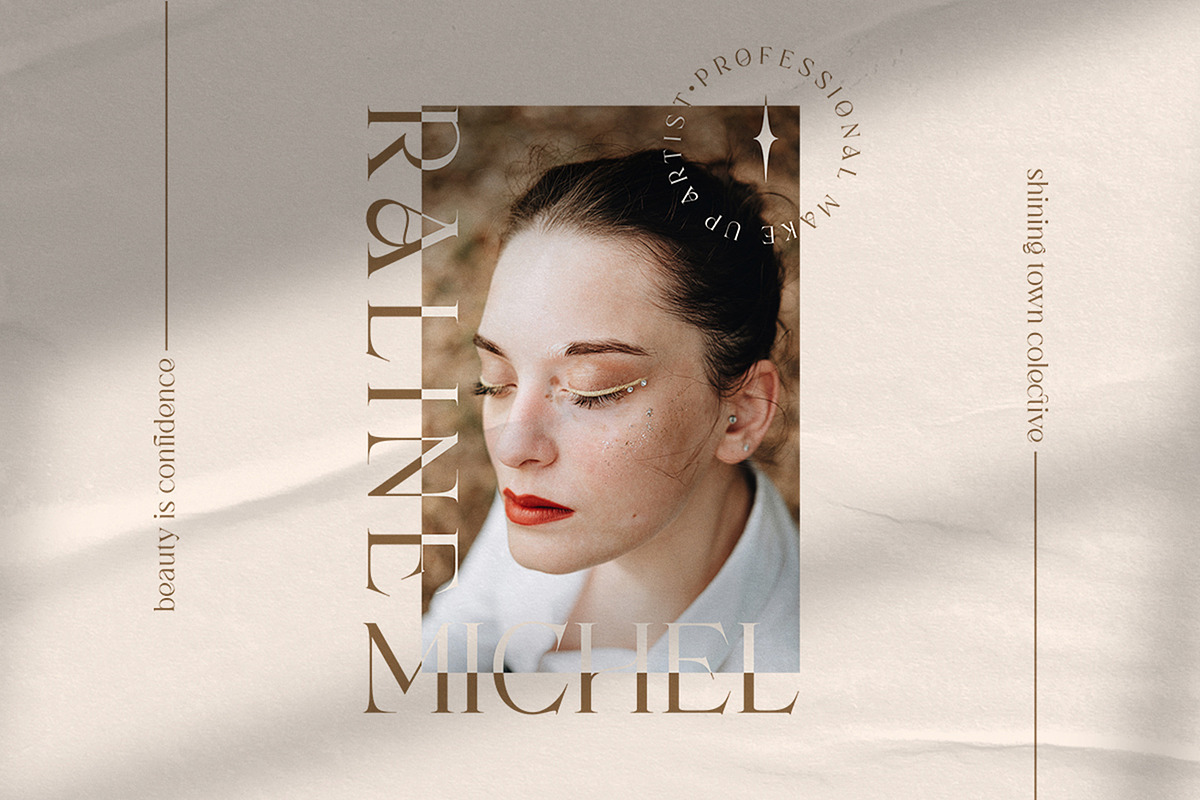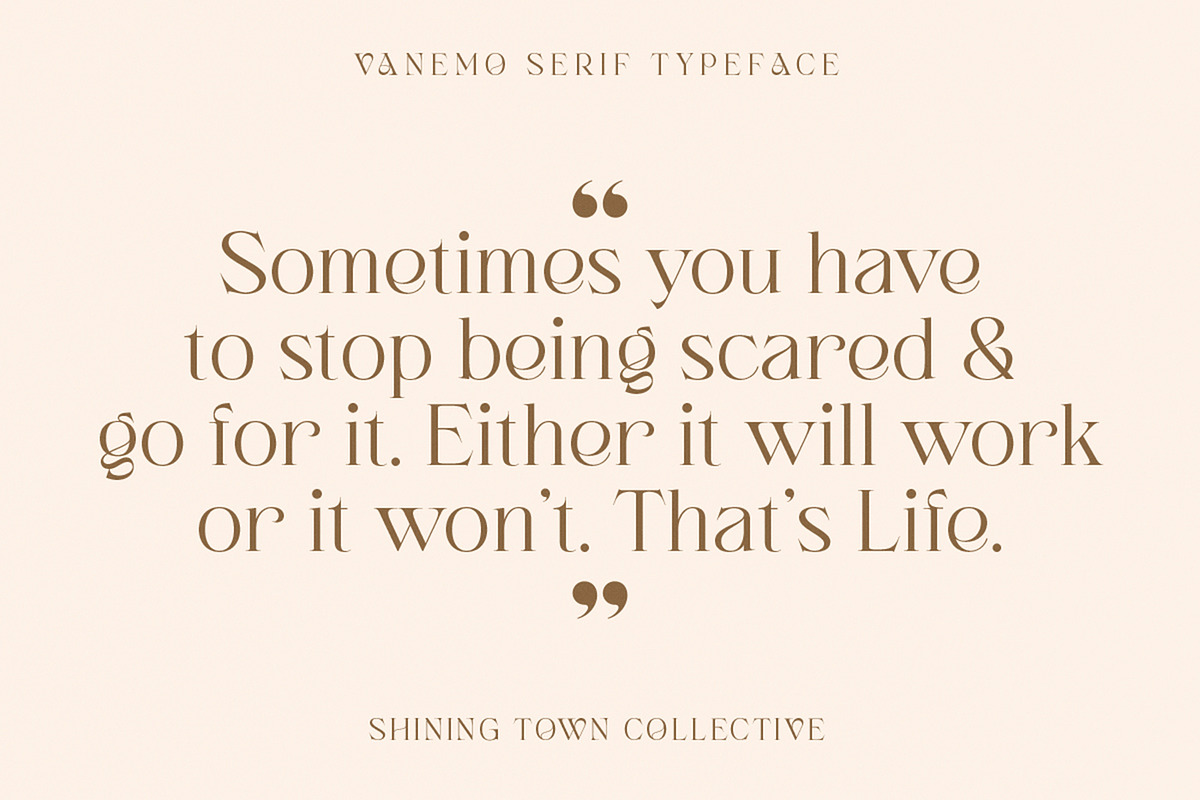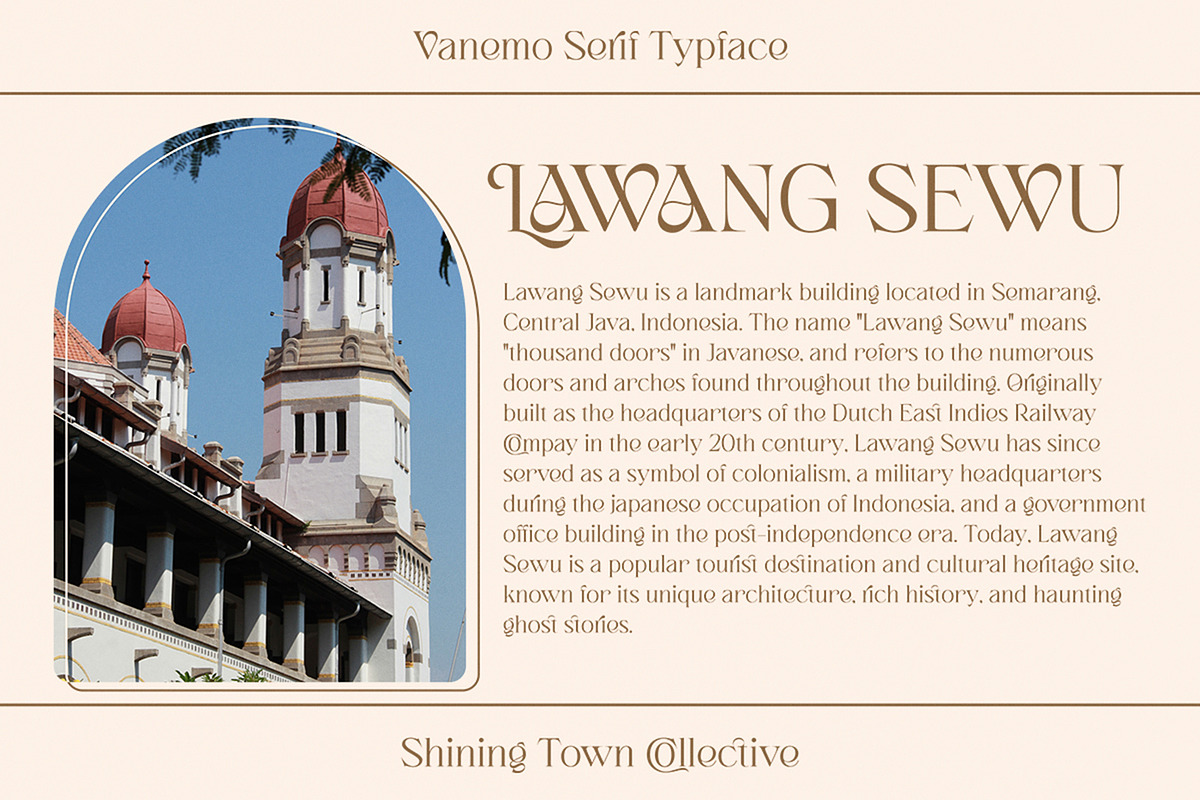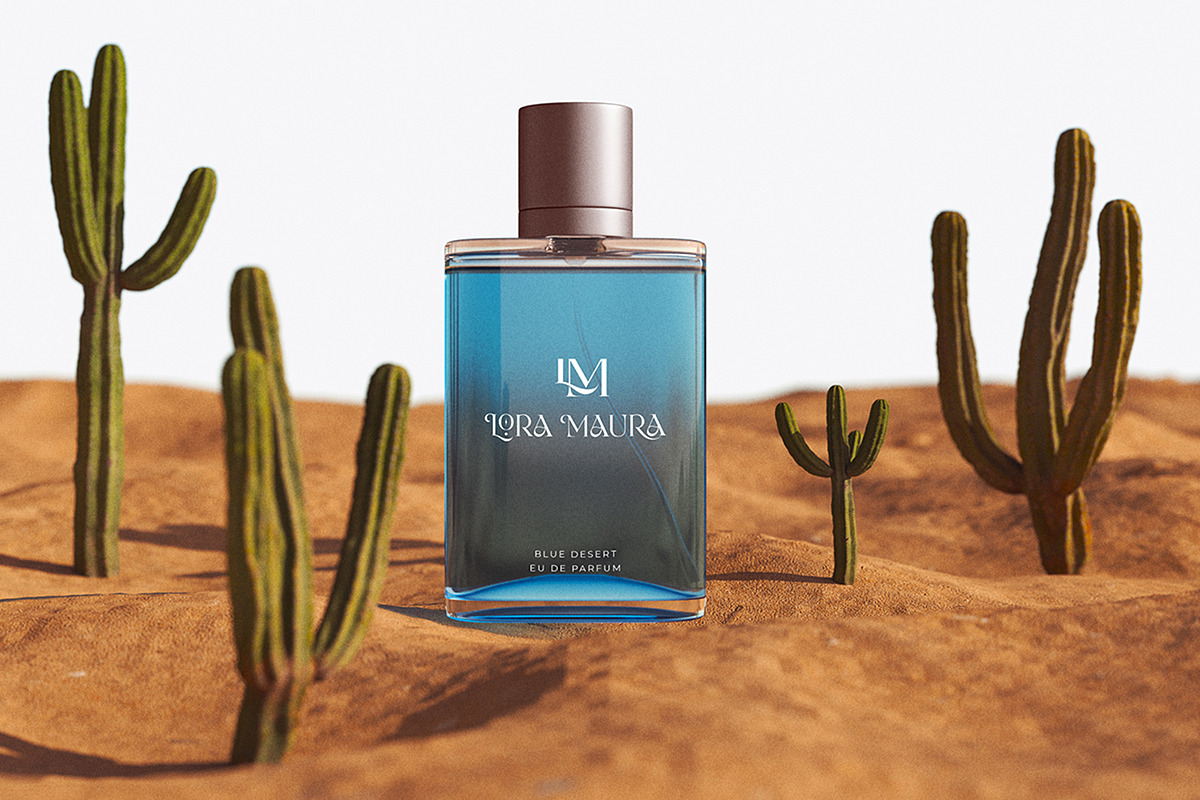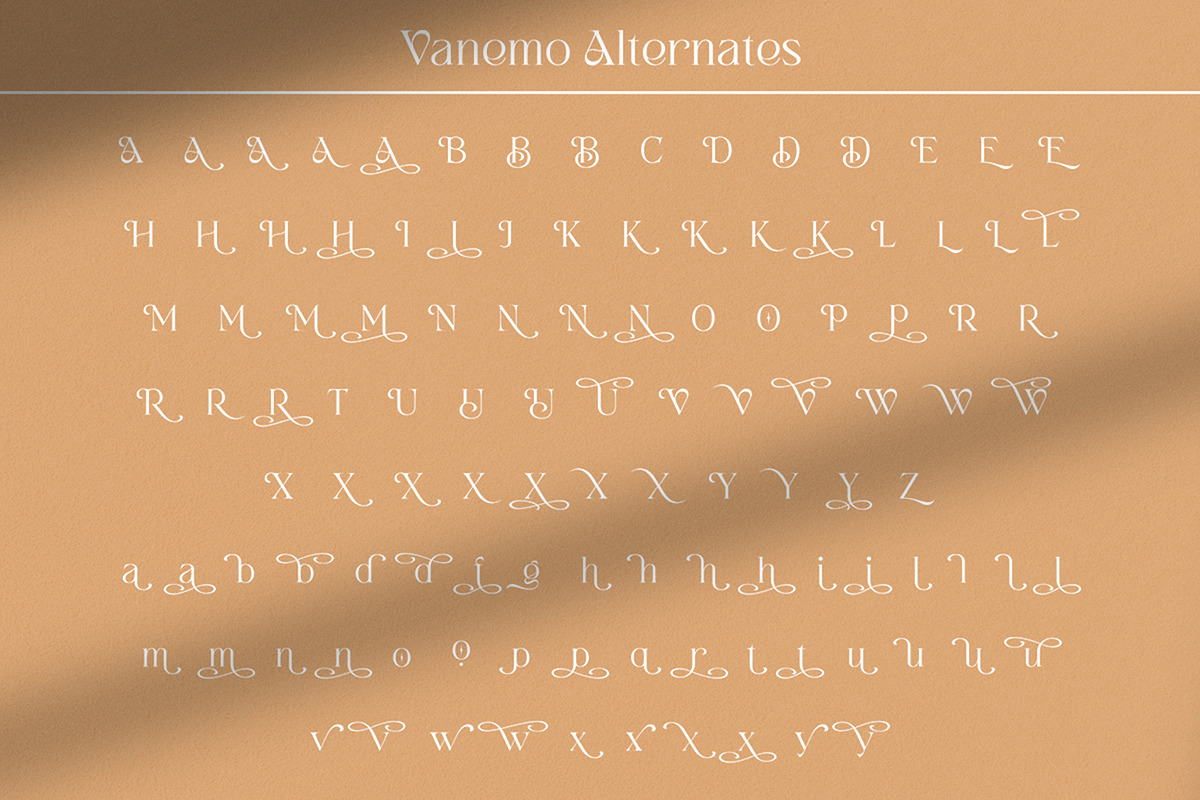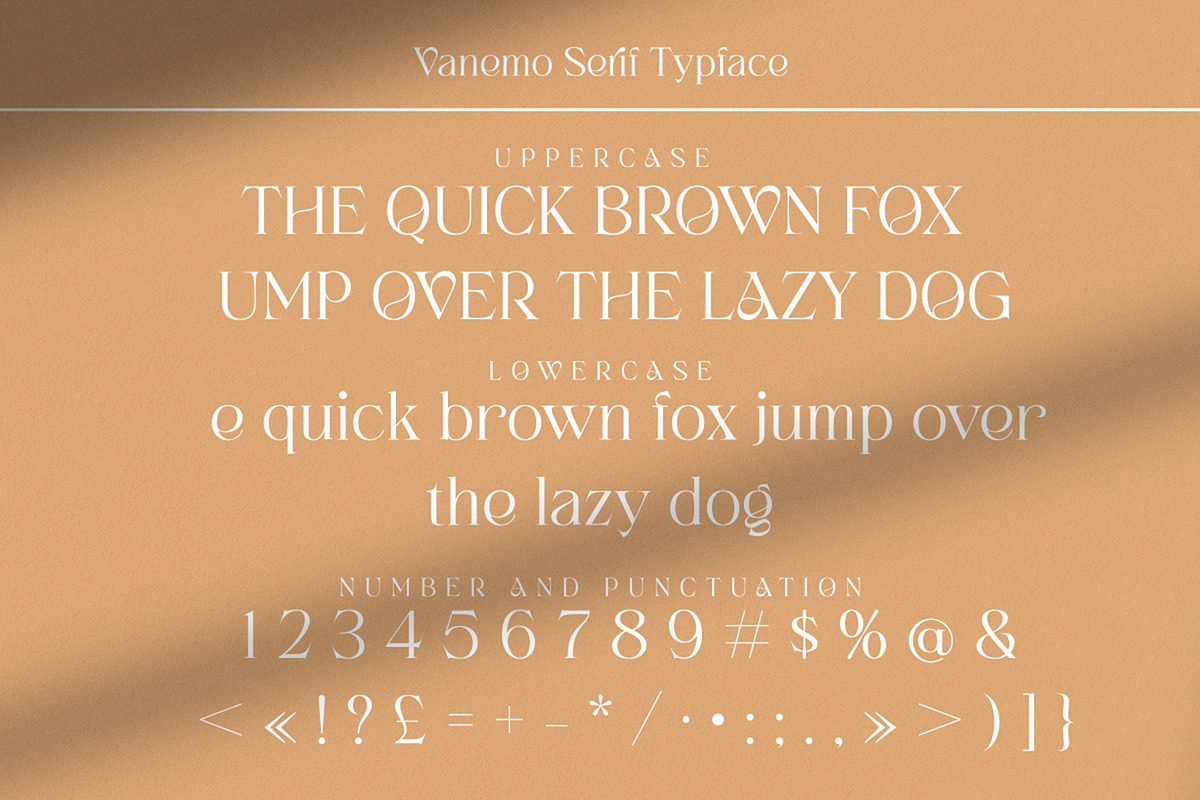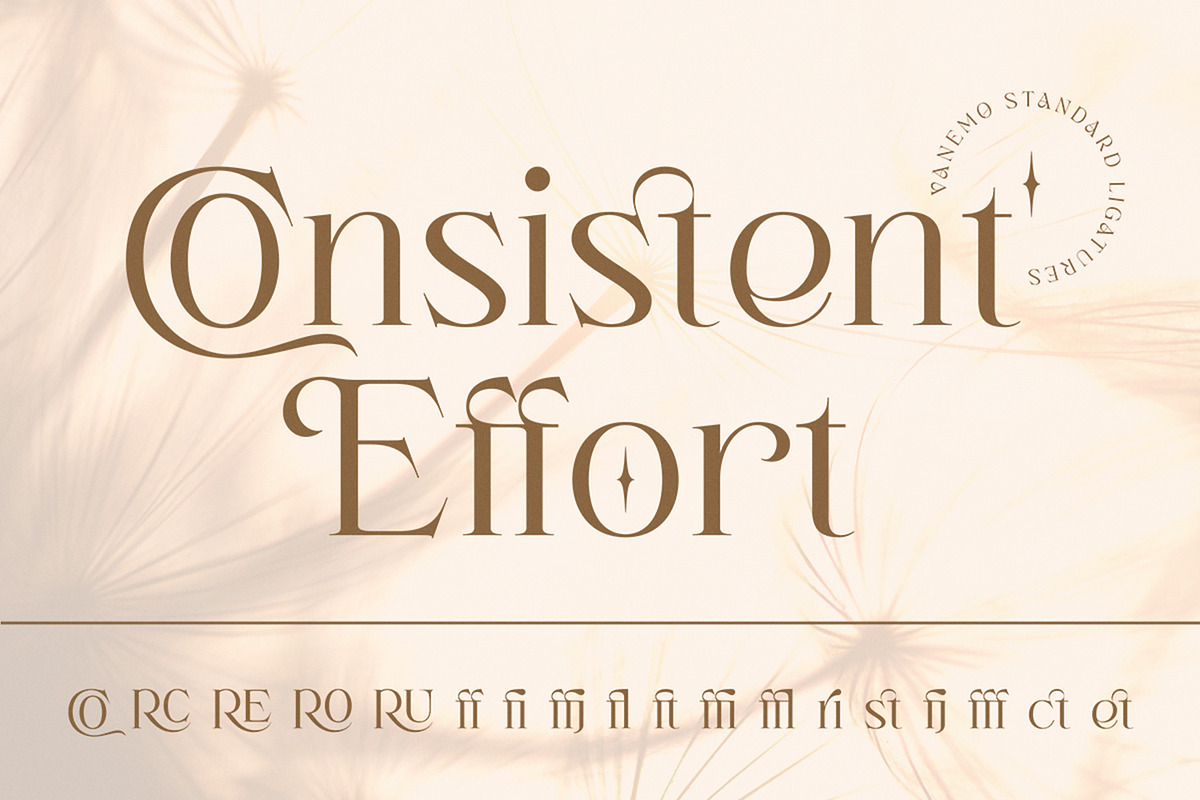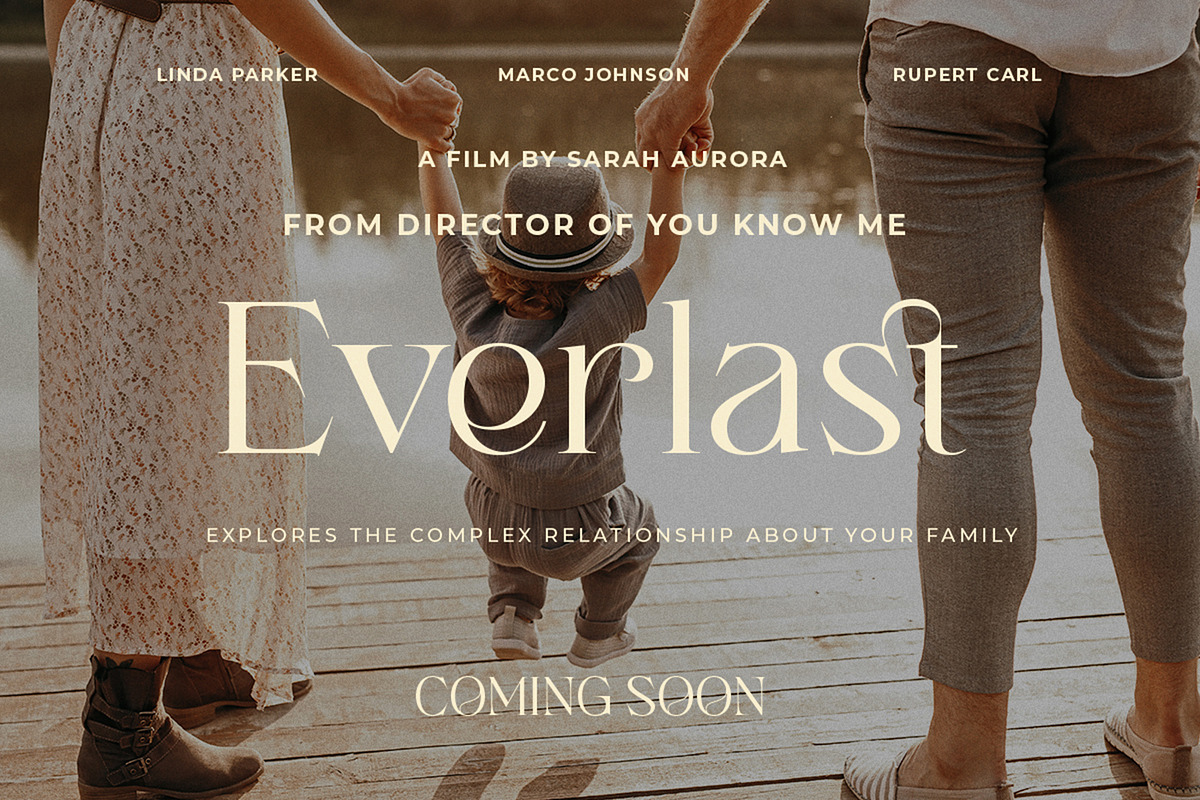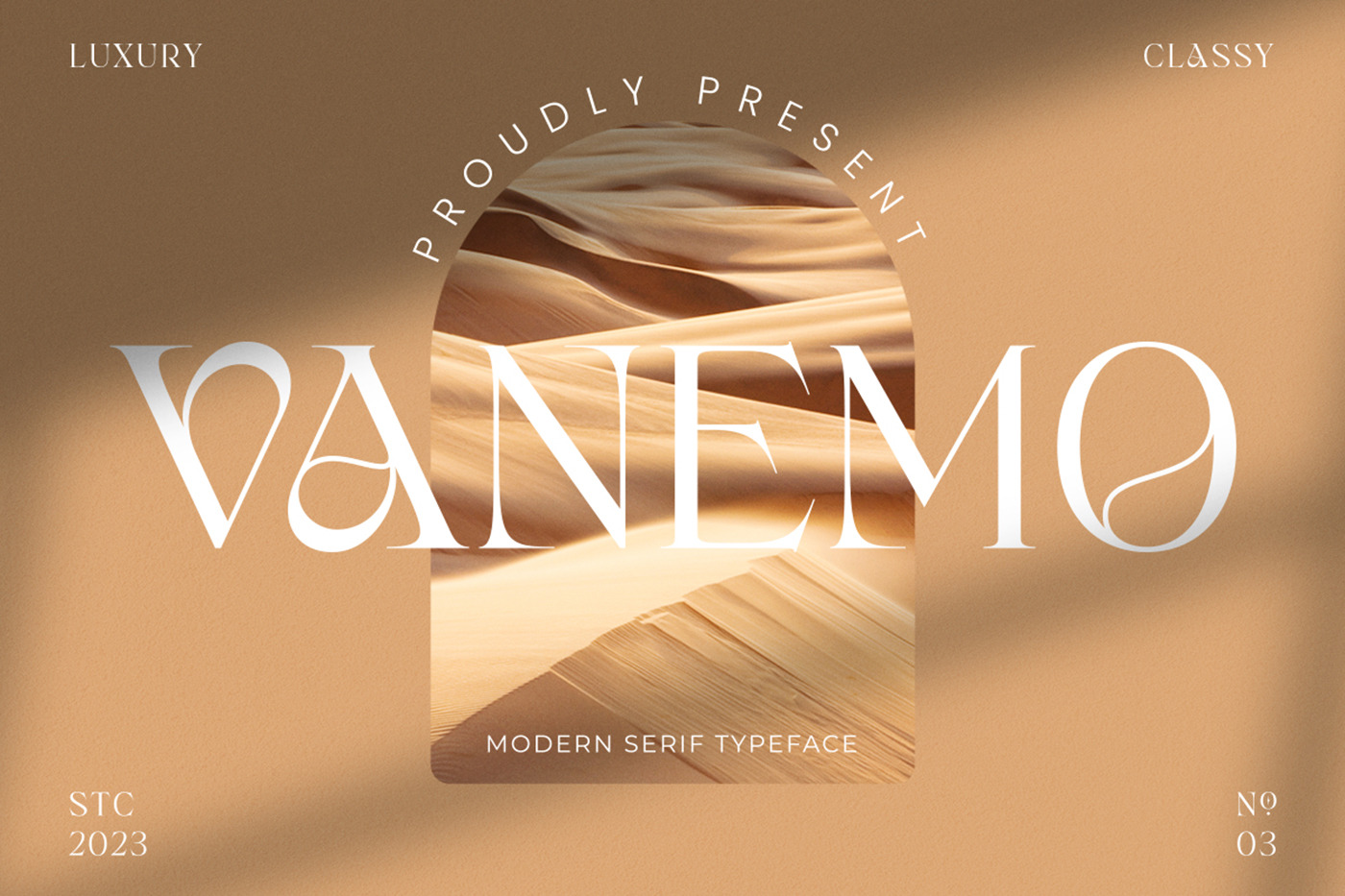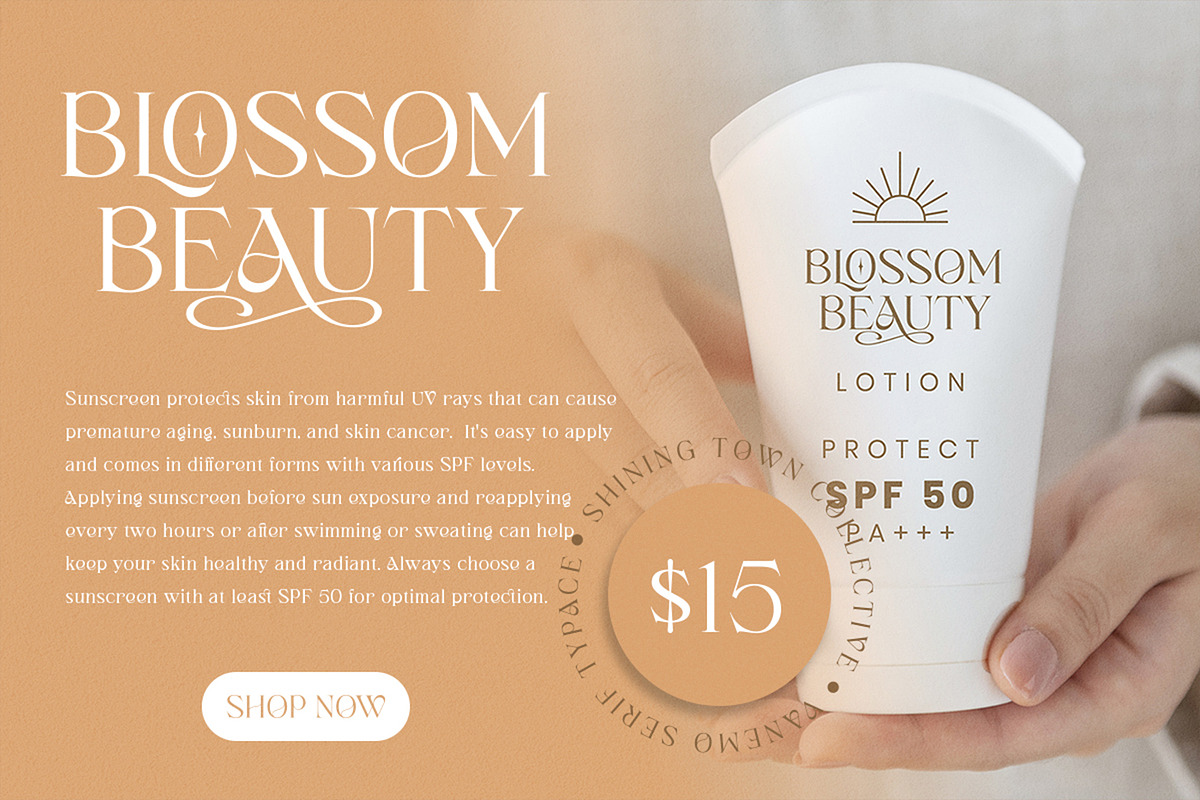
Vanemo Modern Serif Typeface
Introducing, Vanemo! - a modern serif typeface that exudes elegance and sophistication. With its refined and timeless design, Vanemo captures attention and adds a touch of prestige to any project. The clean and intricate letterforms convey a sense of classic beauty, making it perfect for high-end branding, editorial layouts, and luxurious packaging.